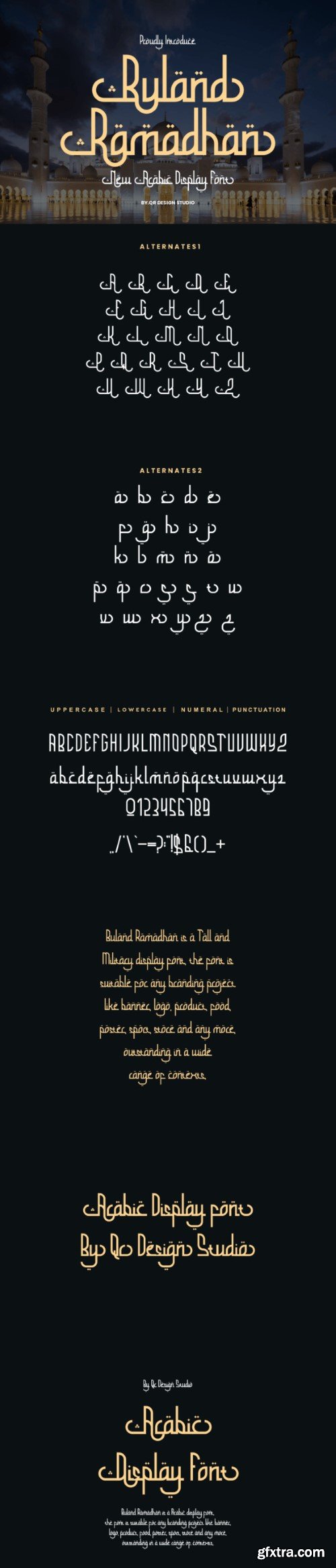
Buland Ramadhan is a chic Arabic-style handwritten script font that radiates elegance and sophistication. Its smooth curves and elaborate details inspire a feeling of heritage and culture. Ideal for adding a hint of elegance to invitations, branding, and designs looking for a mix of modernity and Arabic calligraphic allure.